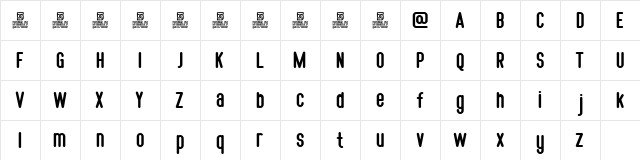
Somber Sans Demo Regular
Design Context for Somber Sans Demo Typeface
Somber Sans Demo is a composed and adaptable typeface that performs quietly and consistently across a wide range of design contexts.